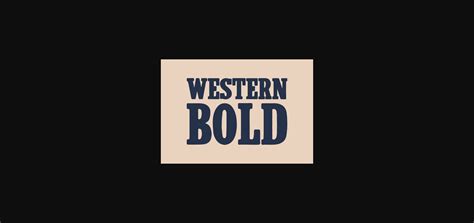
OSCBahamas Extrasc Bold Western Font: A Comprehensive Guide
Hey guys! Ever stumbled upon a font and thought, “Whoa, where did that come from?” Well, today, we’re diving deep into the world of the OSCBahamas Extrasc Bold Western Font . It’s a typeface that screams the Wild West, a font that’s as rugged and captivating as a John Wayne movie. We’ll explore everything you need to know about this unique font, from its characteristics to how you can use it to spice up your designs. So, buckle up, partner, and let’s ride!
What Exactly is the OSCBahamas Extrasc Bold Western Font?
So, what’s the deal with the OSCBahamas Extrasc Bold Western Font ? It’s a display font, meaning it’s designed to grab attention. Think of it as the font equivalent of a cowboy’s flashy belt buckle. It’s not meant for long blocks of text; instead, it’s perfect for headlines, logos, posters, and anything else where you want to make a bold statement. The “Western” in its name gives a clue to its inspiration; it’s got that classic, Wild West feel. The “Extrasc Bold” part tells you that it’s a beefy font, meaning it’s thick and demands attention. You’ll find it has the kind of sturdy, slightly weathered appearance reminiscent of old wanted posters, saloon signs, and everything else that evokes the spirit of the American frontier. The designers nailed the rough, slightly worn aesthetic so well; it makes it a standout. The weight and the style of the OSCBahamas Extrasc Bold Western Font are a perfect combination to make sure the font stands out from the crowd. If you want a font that has a lot of character and visual strength, then this is the perfect option. Consider it a visual representation of a strong handshake or a rugged landscape! It’s the kind of font that makes your designs unforgettable, whether you want to conjure the spirit of a classic Western or simply add a touch of vintage flair to your project. This font is a statement piece.
Key Characteristics and Features of the Font
Alright, let’s break down the nitty-gritty of what makes the OSCBahamas Extrasc Bold Western Font tick. First off, its boldness is its main attraction. The thick strokes create a strong visual presence. You cannot ignore this font; it shouts its message to your audience. The designers went all in to make sure the font has a visual impact. Next up is the serif style, and the subtle variations of the lines. This font features serifs, which are the small decorative strokes at the ends of the letters. These serifs add to the Western feel, giving it a classic, slightly weathered look. Its letterforms also often have a slight slant or a rugged edge, which is another nod to the fonts found on old wanted posters and saloon signs. The designers really paid attention to the details to create a consistent design. One thing to keep in mind is its readability. While it’s perfect for display use, it might not be ideal for body text. It is designed to be seen from a distance or at a glance. Lastly, this font usually includes a full set of characters, so you can easily use it to create text, headlines, and more. When it comes to Western fonts, it is a great choice. You won’t regret using the OSCBahamas Extrasc Bold Western Font, so go ahead and give it a try. The font is built to make a difference in your design, so don’t be afraid to take advantage of its features. It can significantly enhance your designs.
Where and How to Use the OSCBahamas Extrasc Bold Western Font
Okay, so where can you actually use this awesome font? The OSCBahamas Extrasc Bold Western Font is a versatile tool. It’s a great choice for various projects. First off, it’s perfect for branding. Create logos and visual identities that capture the essence of the Wild West. Imagine a logo for a whiskey brand, a motorcycle club, or a vintage clothing store – this font fits right in! Think about how the font looks; it sets the tone and makes your brand memorable. Next, consider this font for posters and flyers. It can transform ordinary designs into eye-catching pieces. Whether it is a concert, a movie night, or any event, this font does the trick. Its bold and attention-grabbing design makes it impossible to ignore. Social media posts and graphics are also great options. Use the font to create amazing images on your social media accounts. You can use it for quotes, announcements, or anything else you need to say. Moreover, the font is perfect for website headers and titles. It brings a unique, vintage style that sets your website apart. The font has a rustic appeal. It is a fantastic tool to create unique designs. It is also good for themed events, invitations, and anything else where you want to add a touch of Western charm. The OSCBahamas Extrasc Bold Western Font has a variety of different uses. The only limit is your imagination. Don’t be afraid to try new things and see what you can create. This font will make your designs unique and impressive. You will get great results!
Design Tips for Using the OSCBahamas Extrasc Bold Western Font
Now, let’s talk about some design tips to help you make the most of the OSCBahamas Extrasc Bold Western Font . First off, keep it simple. Remember, this font is already bold and visually striking, so you don’t want to overcrowd your design. Pair it with a clean, easy-to-read font for body text. This contrast will create balance and make your message clear. Second, consider the color palette. Earthy tones like browns, reds, and creams are great complements for the Western font. Think about the colors of the desert landscape. You can add a touch of vintage flair by using textures. The best option is to pair the font with a textured background. The font’s rugged style complements the roughness of the textures. Also, don’t be afraid to experiment with size. Since the font is so visually impactful, it can work well in large sizes. Think about headlines and titles. Make it the star of the show! But also remember the space. Ensure that you have enough space around your text. It makes the font stand out and allows your audience to read the message. Moreover, consider using other Western-themed design elements. Think about adding elements like stars, horseshoes, or arrows to make the design complete. These elements will enhance the theme. Lastly, don’t forget to consider the overall aesthetic. The OSCBahamas Extrasc Bold Western Font is perfect for vintage and retro designs. However, it can also be used in modern designs to add contrast and personality. The results are always unique and eye-catching. The tips will help you create beautiful designs. Embrace the font’s characteristics and let your creativity run wild.
Alternatives and Similar Fonts
Okay, maybe the OSCBahamas Extrasc Bold Western Font isn’t exactly what you’re looking for, or perhaps you’d like to explore some similar options. No problem, let’s consider some alternatives. There are many other awesome fonts available. If you like the Western style, but need something a little different, consider fonts like the “Bebas Neue” family. It’s a clean, sans-serif font, but you can find Western-style variations. Another cool font is “ChunkFive Ex,” which has a similar bold and strong feel. Explore other options that bring a similar vintage or retro aesthetic. Then, there’s the “Playbill” font. While not exactly Western, it has a vintage vibe that could work well for certain projects. Explore different styles and font weights to see what works best for your design. Also, consider the overall feel of your project. Select fonts that complement each other and create a cohesive look. When you explore different alternatives, keep the core characteristics in mind. The boldness, the serifs, and the Western influence of the OSCBahamas font are all important elements. It is always a good idea to experiment. Compare different fonts to find the perfect one for your designs. Enjoy your journey of discovery!
Conclusion: Embrace the Wild West of Fonts!
Well, there you have it, folks! A deep dive into the world of the OSCBahamas Extrasc Bold Western Font . It’s a font that embodies the spirit of the Wild West, perfect for making a bold statement in your designs. From its bold appearance to its distinct Western style, this font is a great tool in your creative arsenal. It is a fantastic option for logos, posters, and anything else that needs a touch of vintage flair. Now, go out there, download the font, and start creating! Whether you’re designing a retro poster or a modern brand identity, this font is a great option. Embrace its unique style, experiment with different designs, and let your creativity shine. So, saddle up, partner, and let your designs ride off into the sunset! Happy designing, and don’t forget to have fun! The OSCBahamas Extrasc Bold Western Font is a fun and exciting typeface. You can unleash your creativity and make stunning designs. Go and make your designs unforgettable!